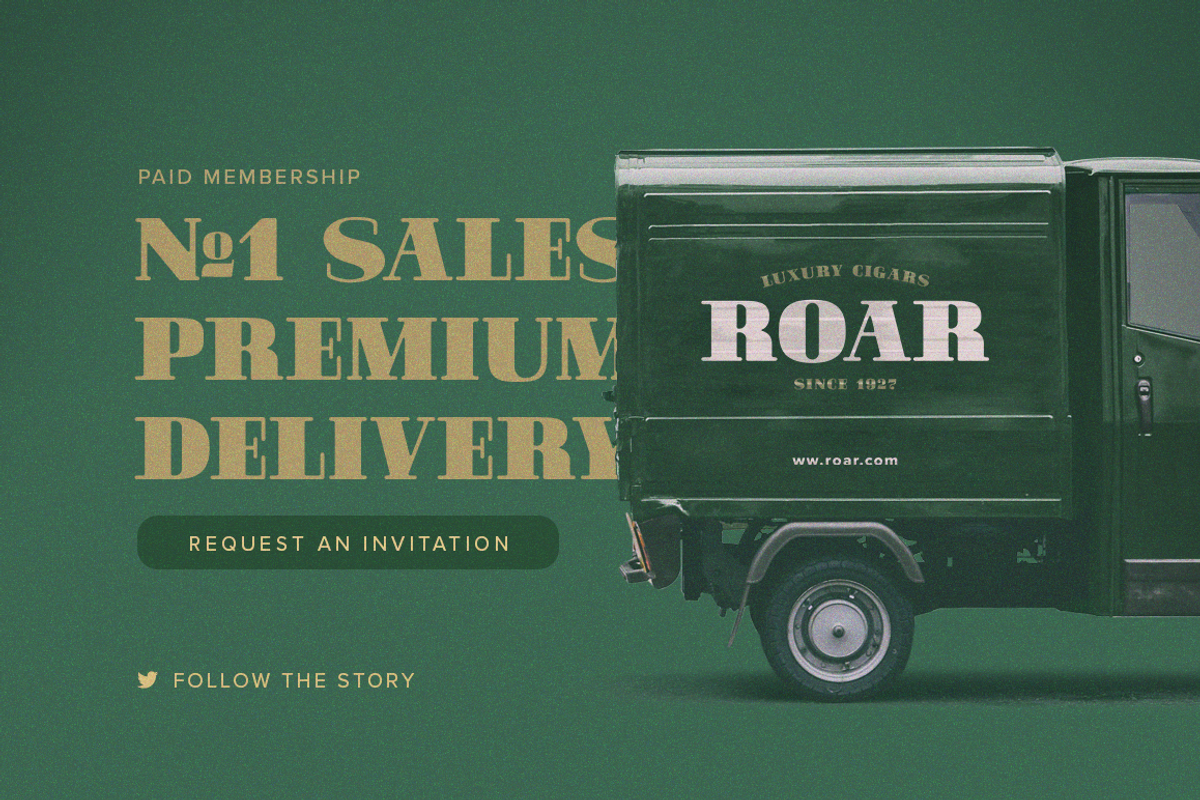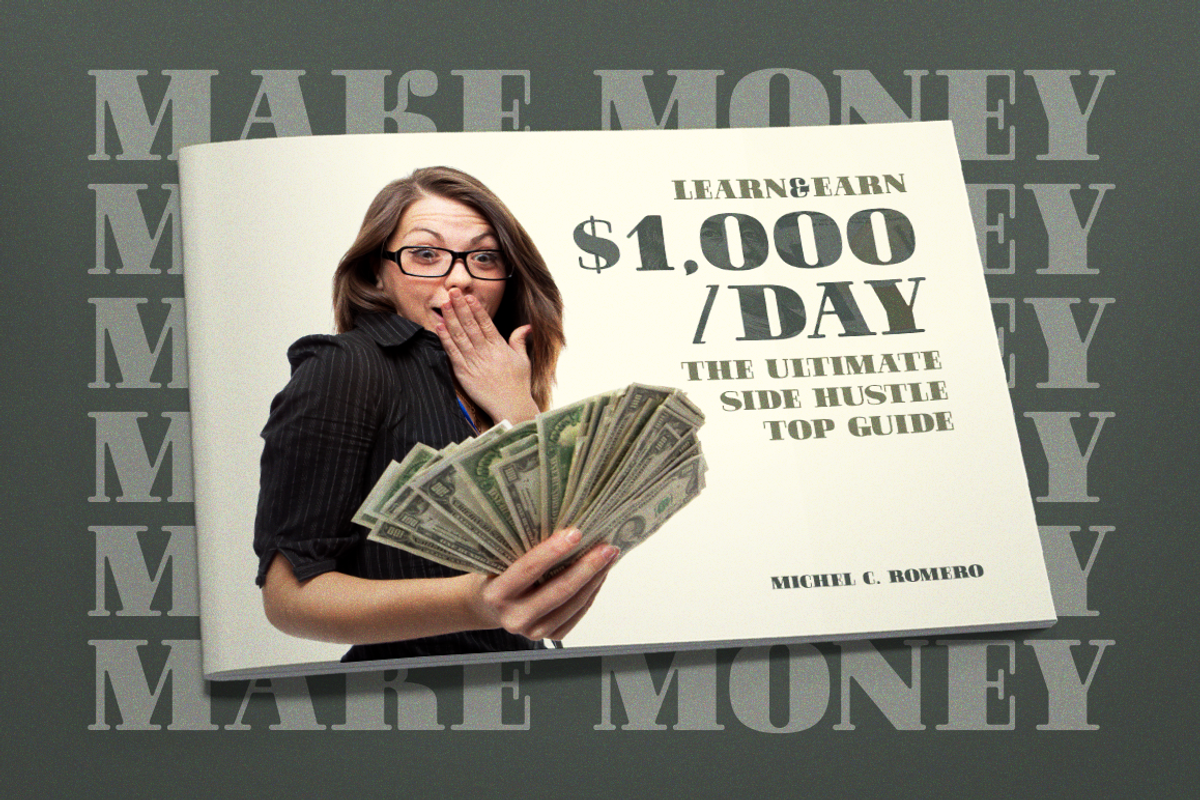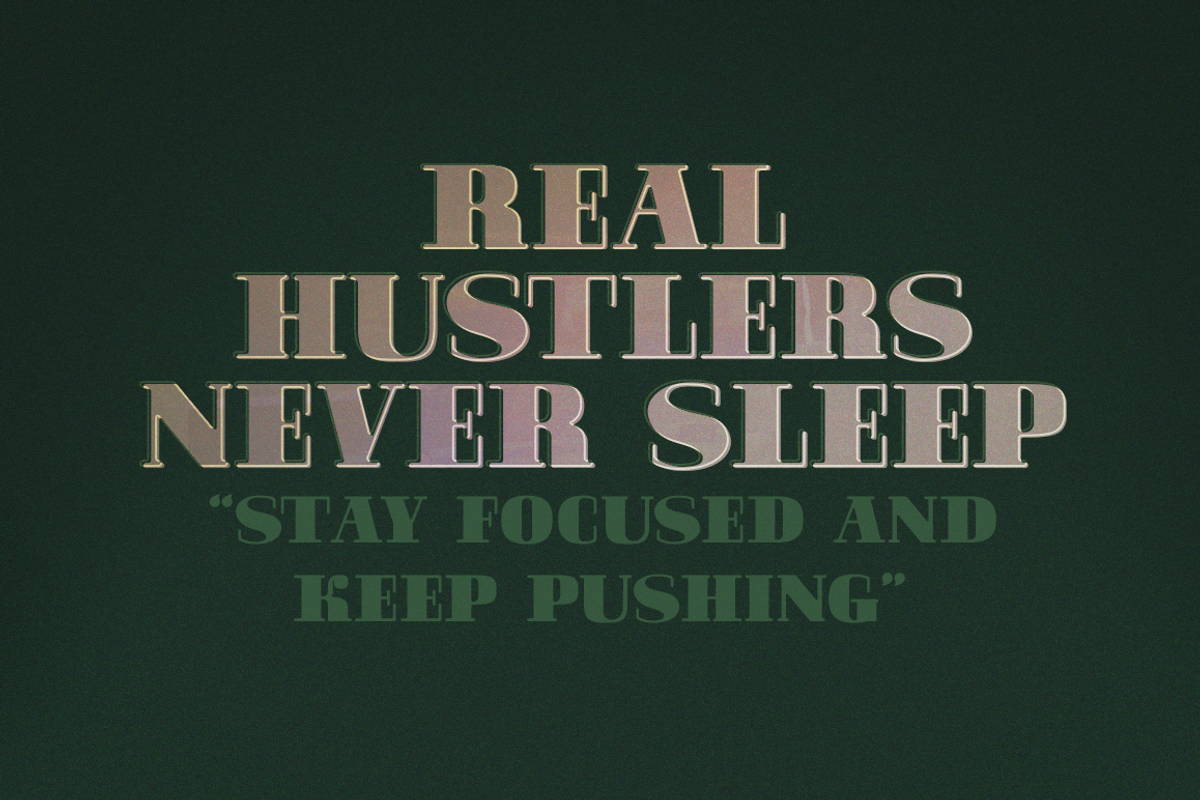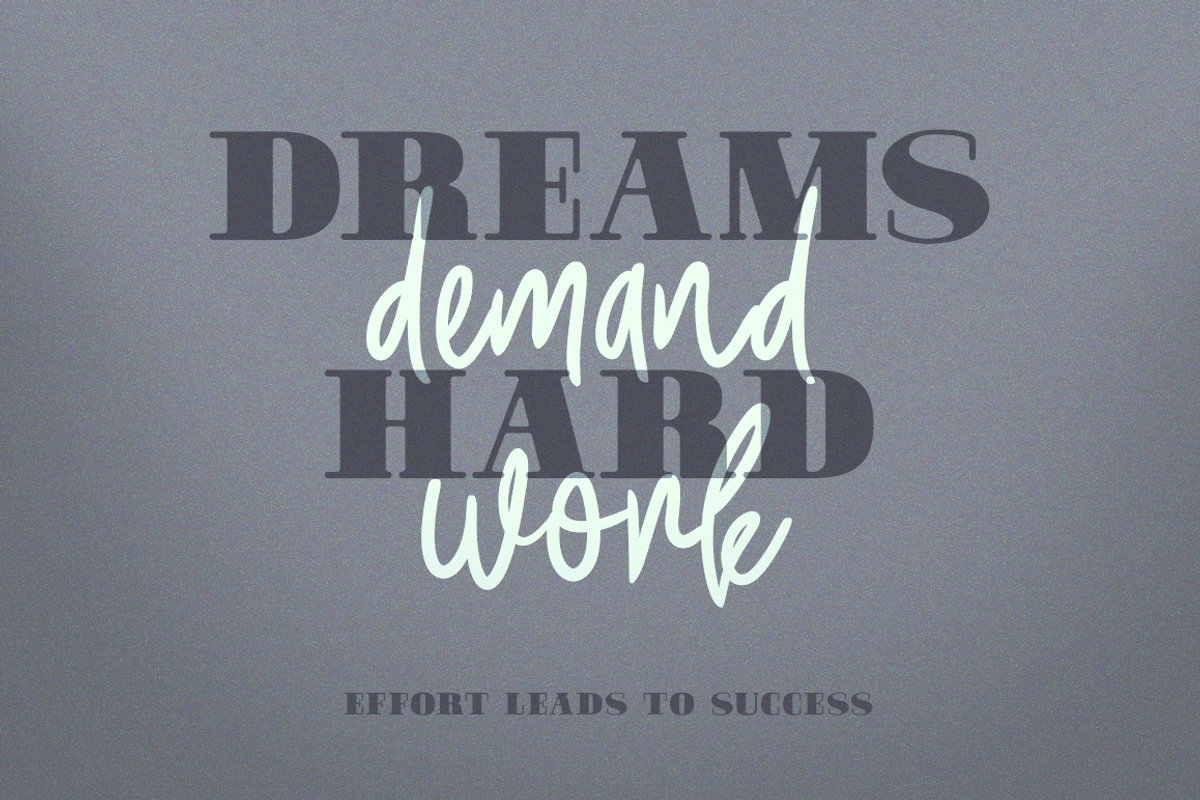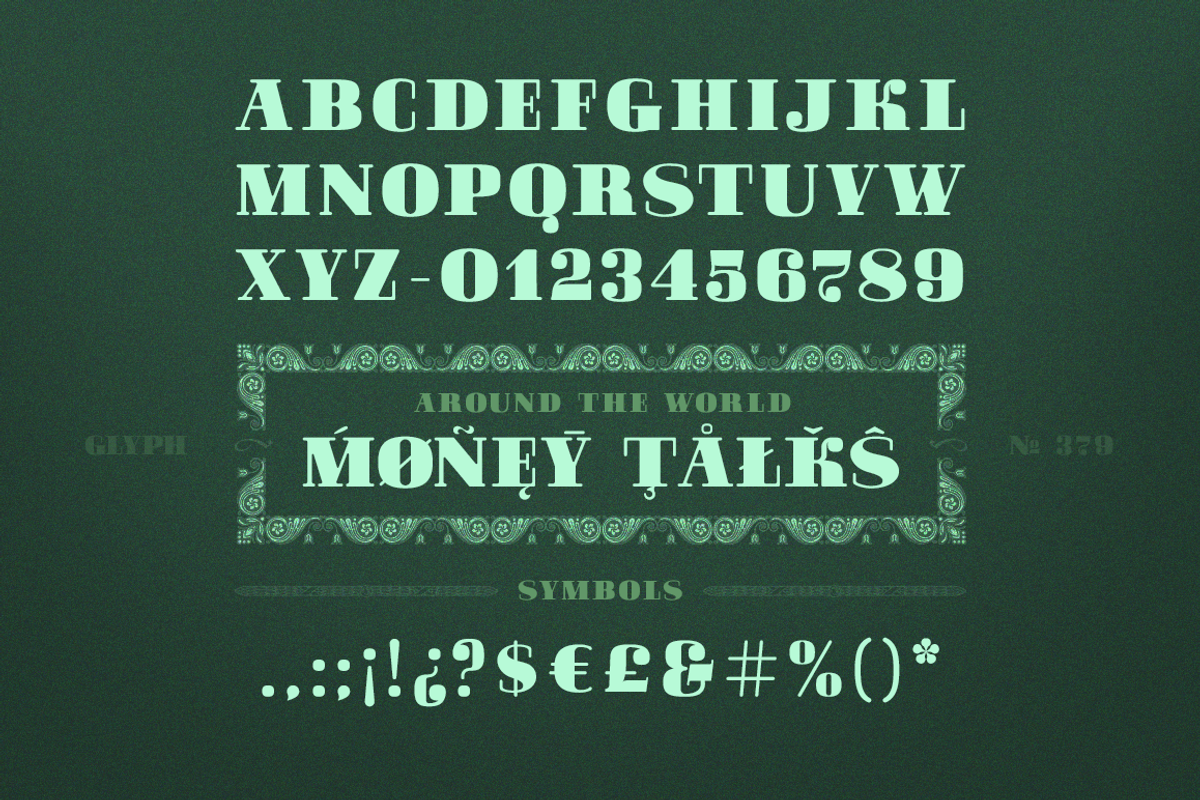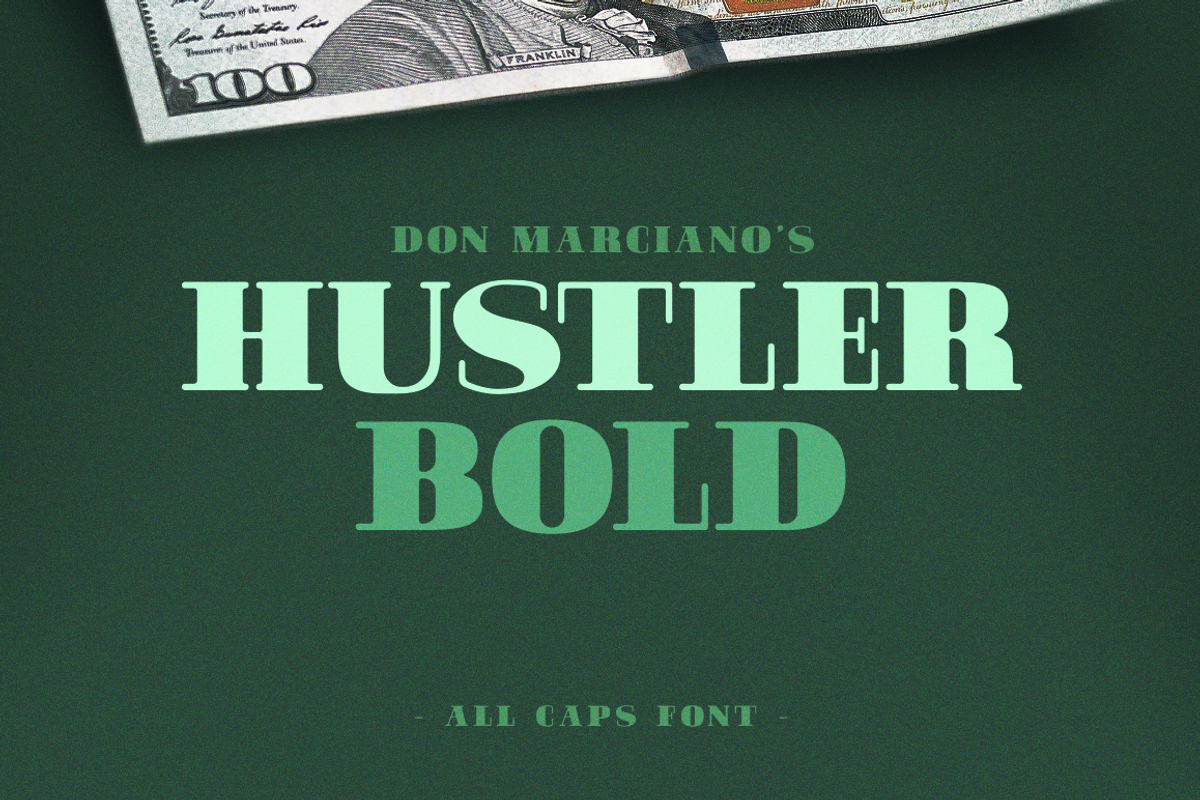
Hustler
Hustler is a bold serif font created for short memorable phrases, with a modern rounded aesthetic over a classic line form, this font offers an “I’m here” attitude that helps translate every message with power and elegance. The file includes all-caps characters, standard punctuation, and international characters for multi-language support features to help you create excellent creative results.